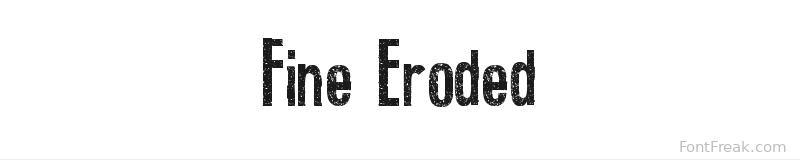
Fine Eroded
About Fine Eroded
The Fine Eroded font, designed by Galdino Otten in 2015, is a distinctive display typeface that embodies a unique blend of elegance and ruggedness. As a decorative font, it features a charming eroded effect that gives it a vintage and worn appearance, making it stand out in a variety of design contexts. The stroke weight is moderately thick, contributing to its bold presence, while the subtle contrast in letterforms adds depth and visual interest. Spacing is thoughtfully balanced, allowing for legibility even in larger settings, and the decorative elements speak to a rustic aesthetic that can evoke nostalgia.
This font is particularly well-suited for use in wedding invitations, where its charming style can add a touch of romance. It also works beautifully for movie posters, as the eroded texture can enhance the theme of adventure or mystery. Restaurant menus can benefit from the Fine Eroded font, lending a handcrafted feel to the overall dining experience. Additionally, it is ideal for branding collateral aimed at artisanal businesses, such as craft breweries or boutique shops, where a unique identity is paramount.
The target audience for this font includes graphic designers looking to add character to their projects, small business owners who want their branding to reflect a handmade quality, and content creators seeking to elevate their visual storytelling. The Fine Eroded font free download is an excellent opportunity for those wanting to experiment with a versatile typeface that enhances their creative work.
What makes the Fine Eroded font truly stand out is its ability to merge rustic charm with modern design sensibilities, offering an appealing option for anyone looking to make a statement in their typography. This unique combination makes it a valuable addition to any designer's toolkit.